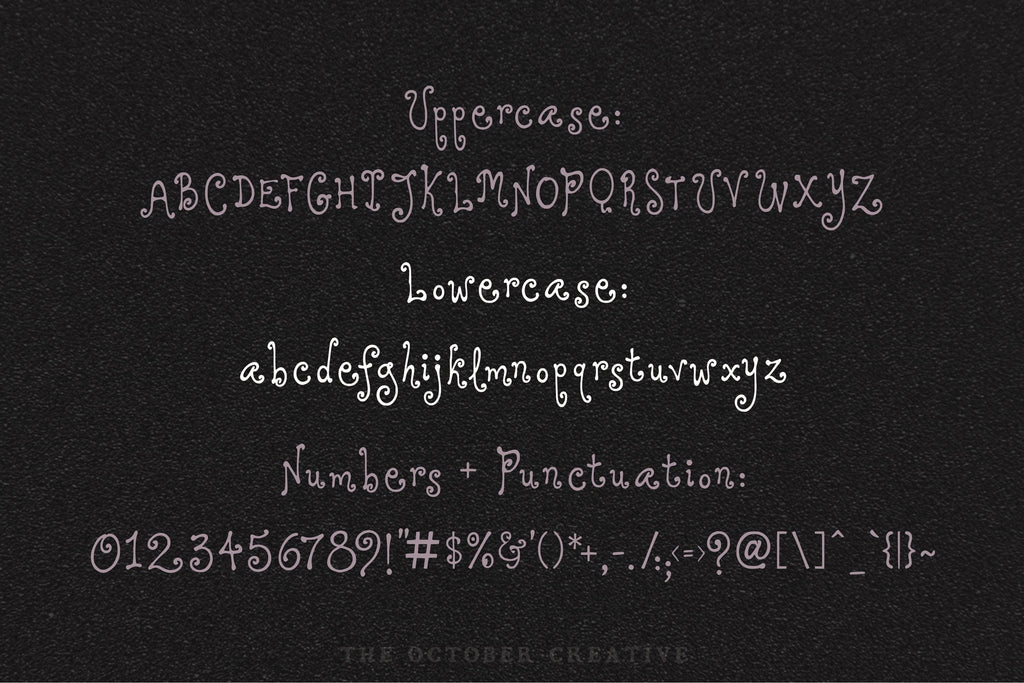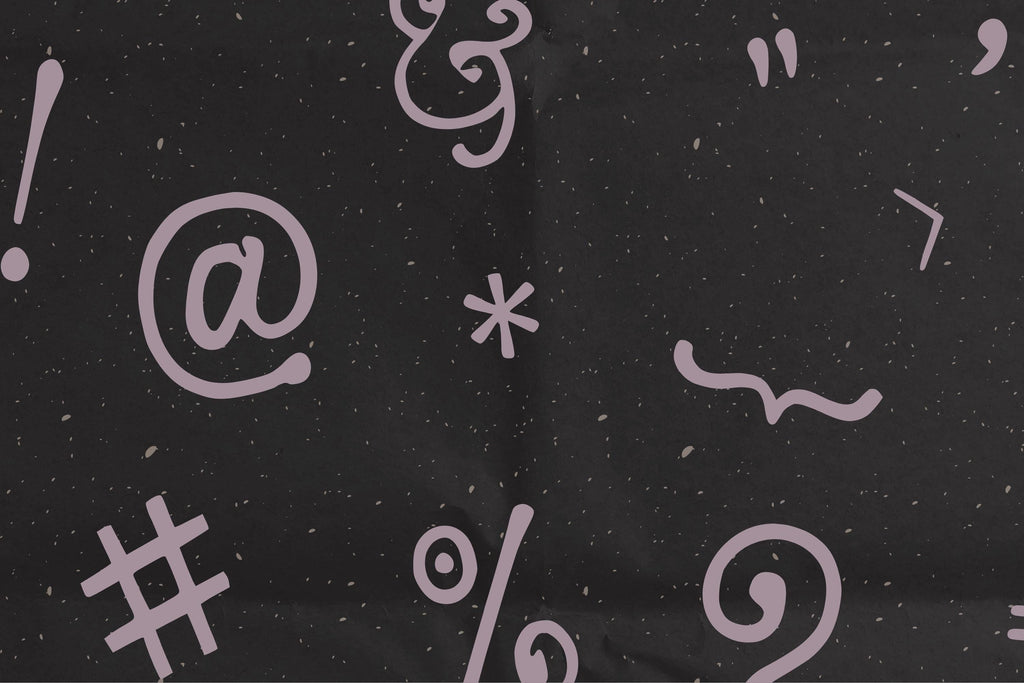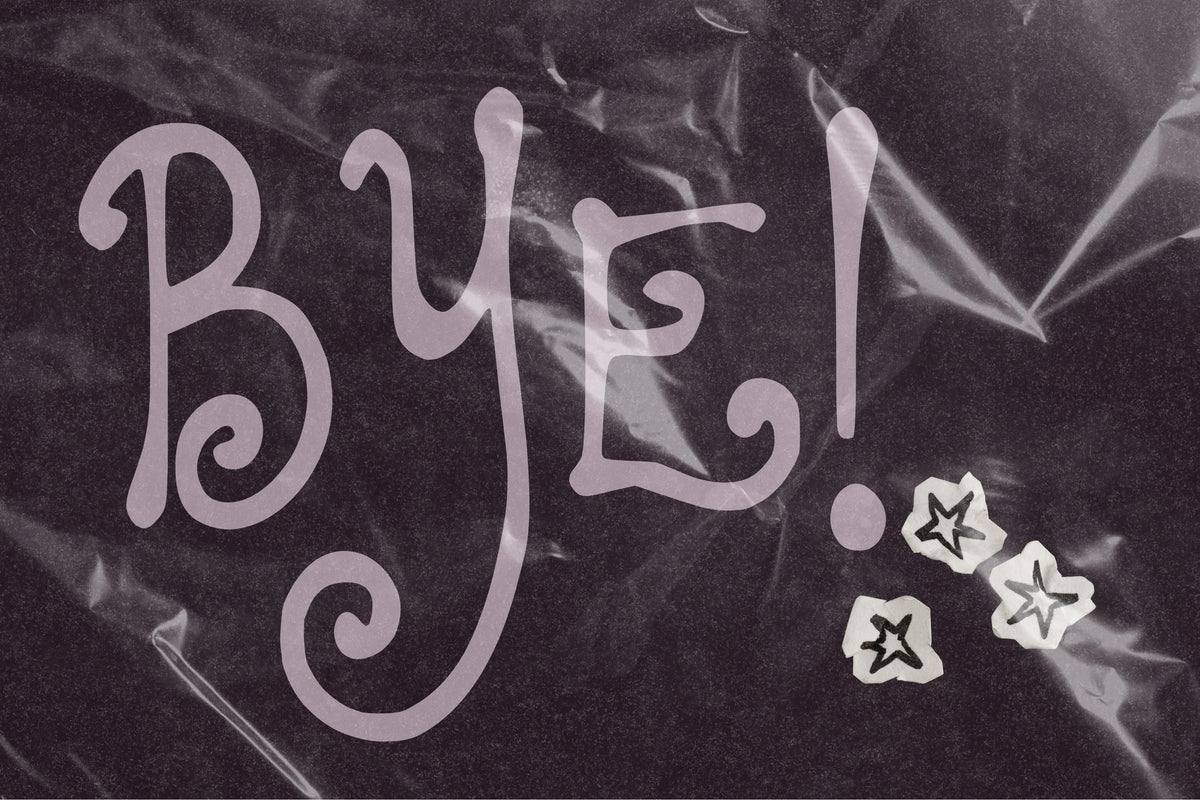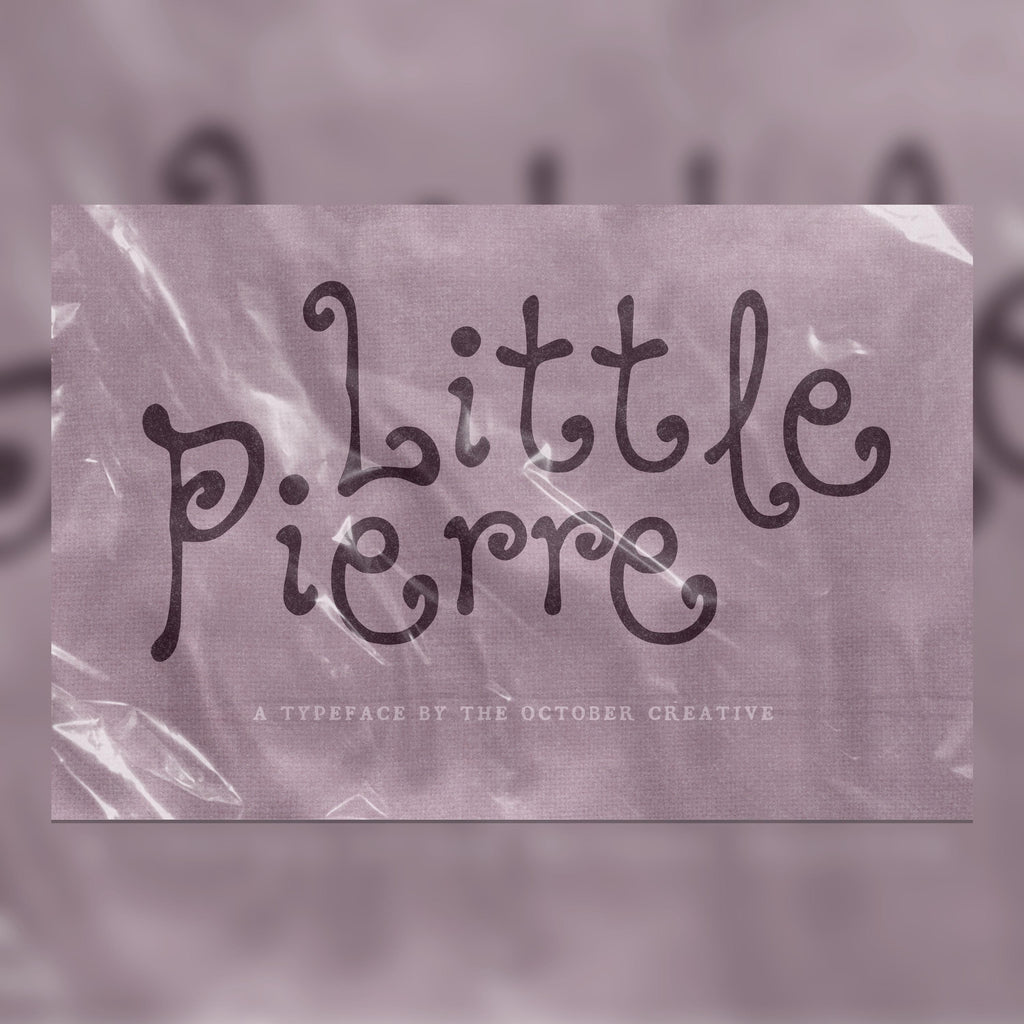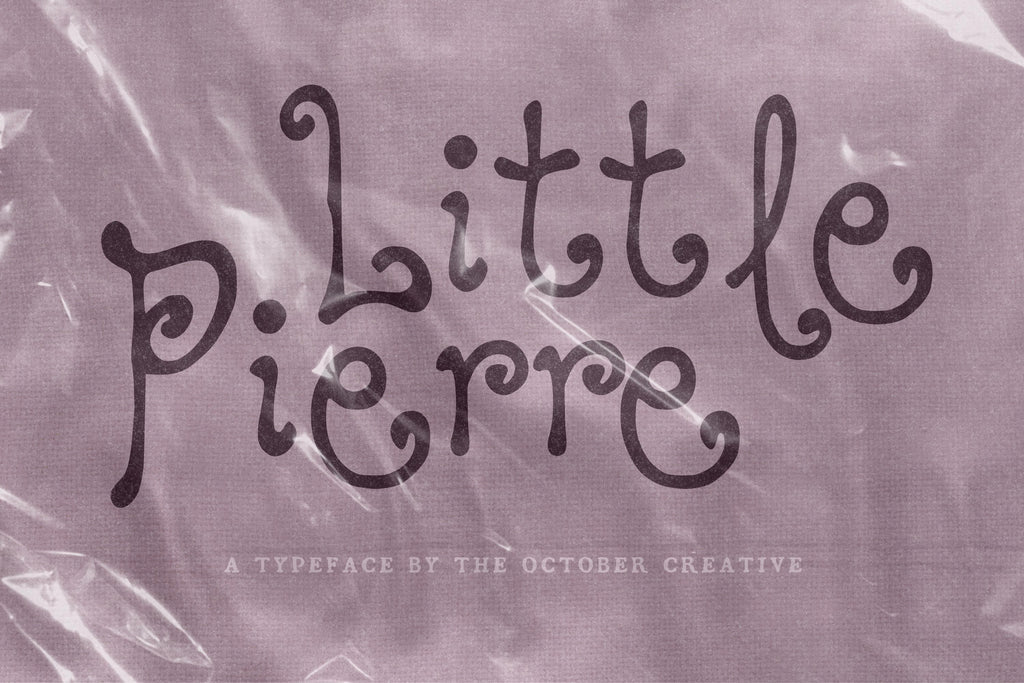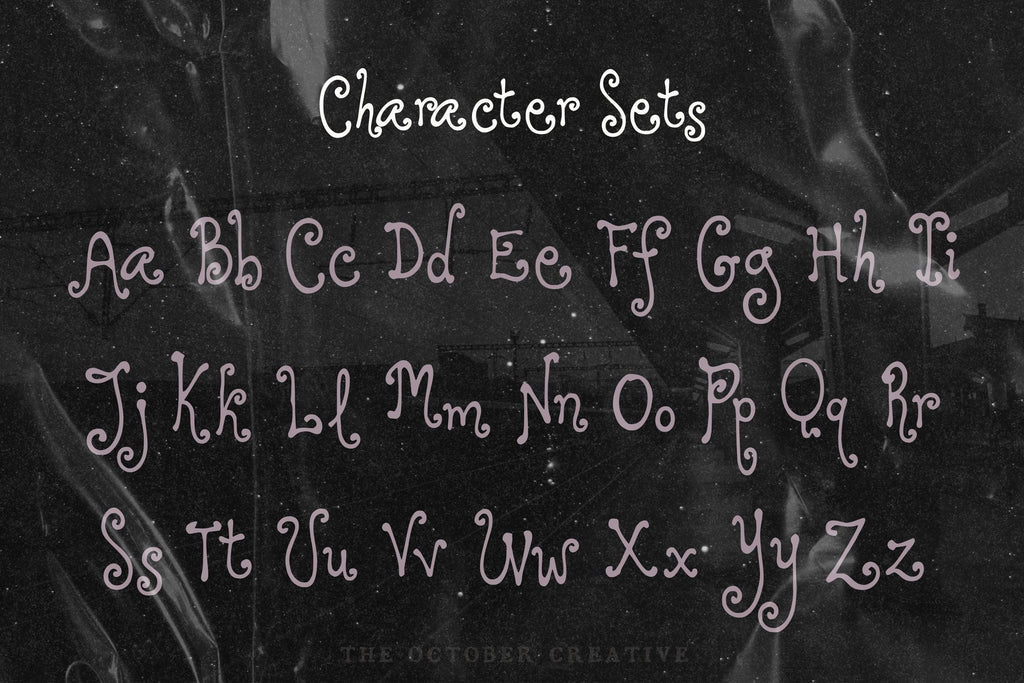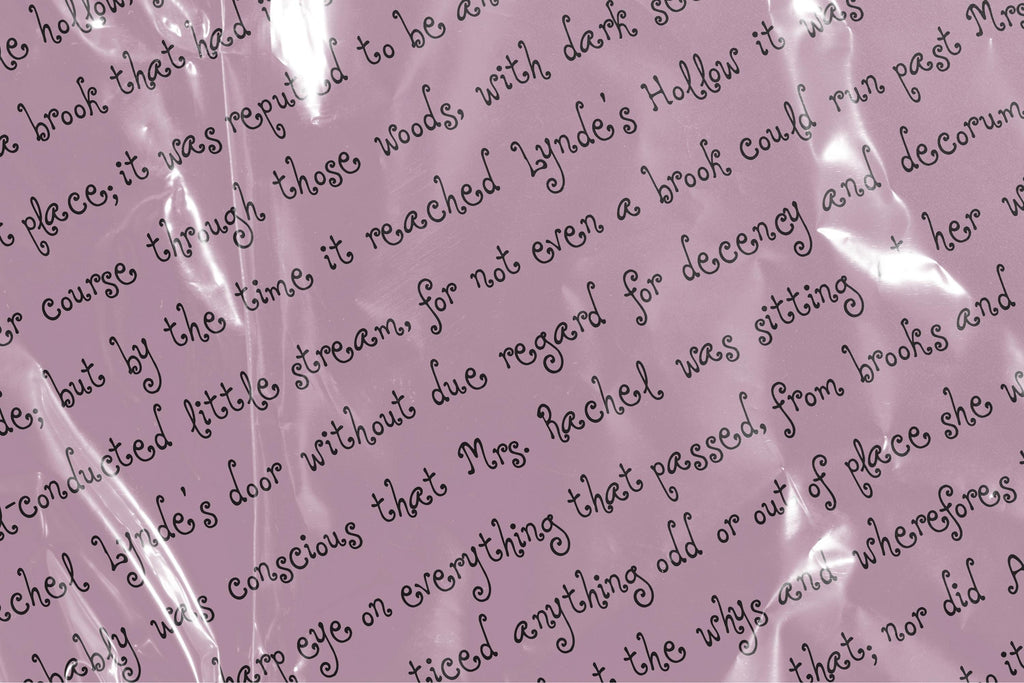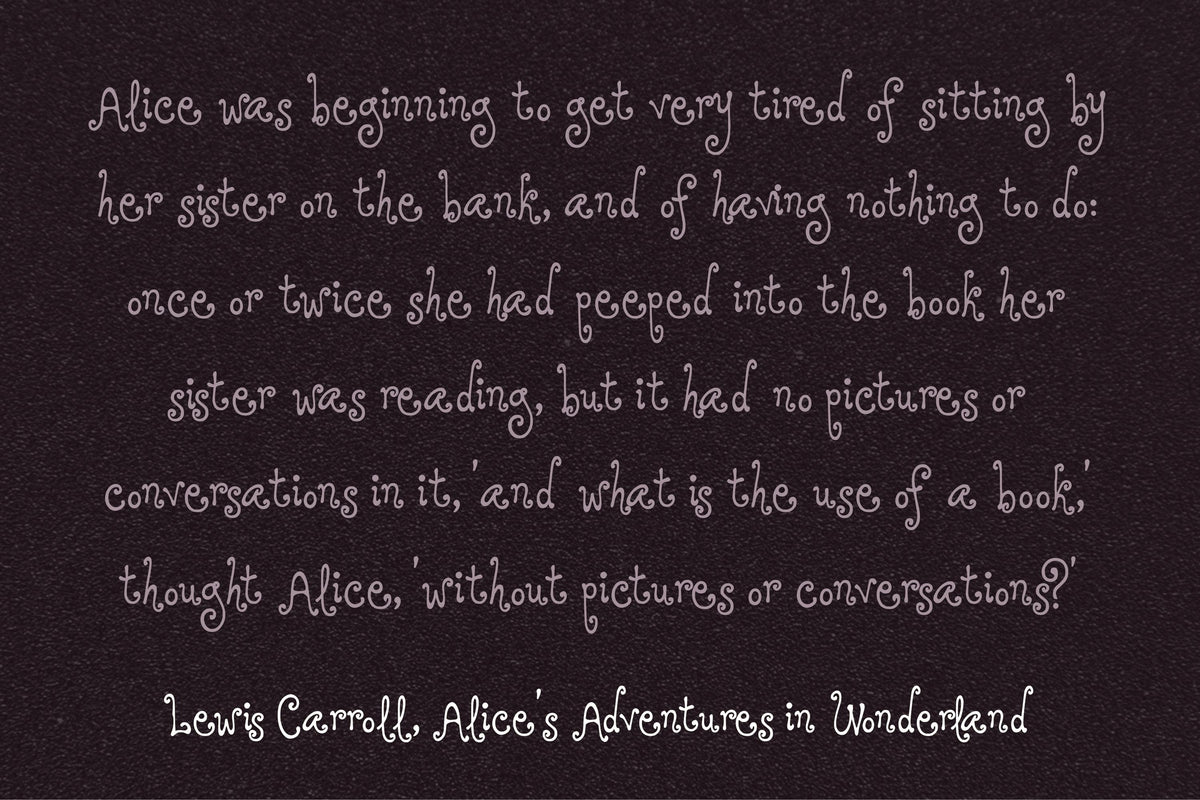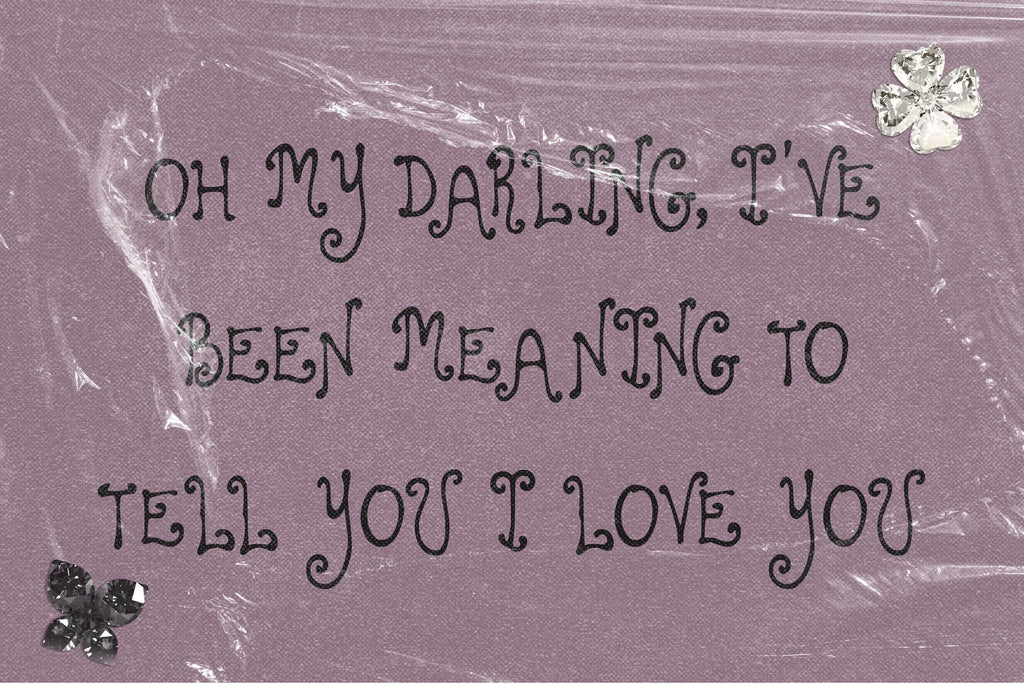
Little Pierre Font
Little Pierre brings rounded letters and a few charming curls to café menus, recipe cards, and homemade labels. With a little space between each letter, it gives your words an easy, friendly feel, even if the menu is just coffee and something sweet.